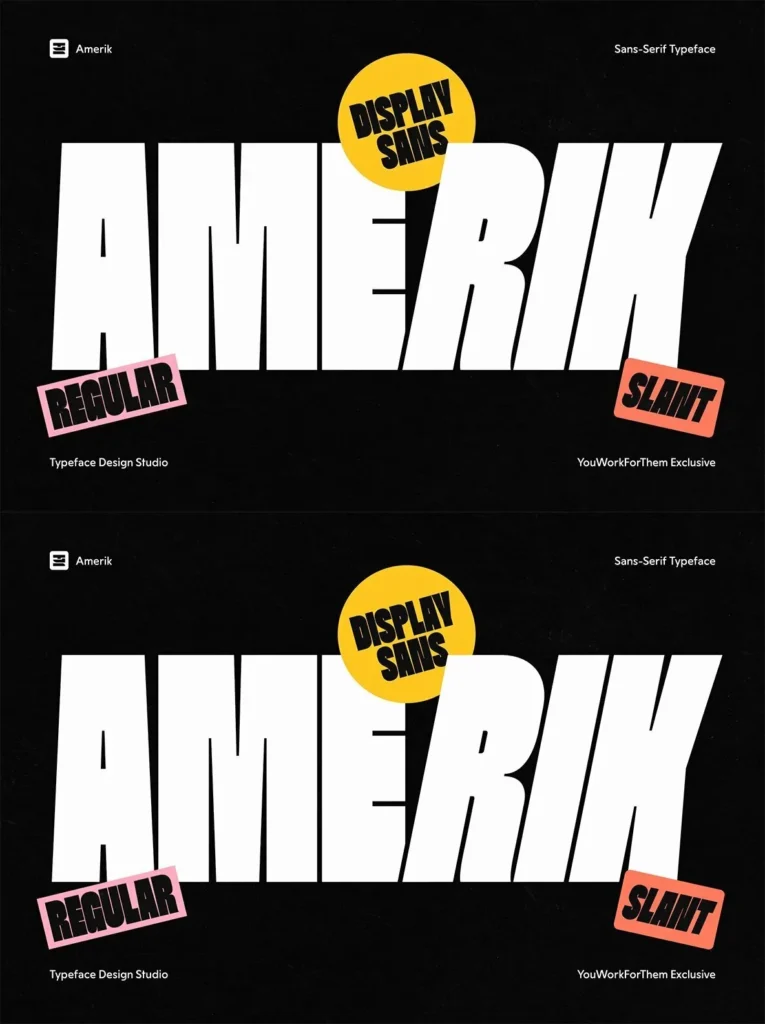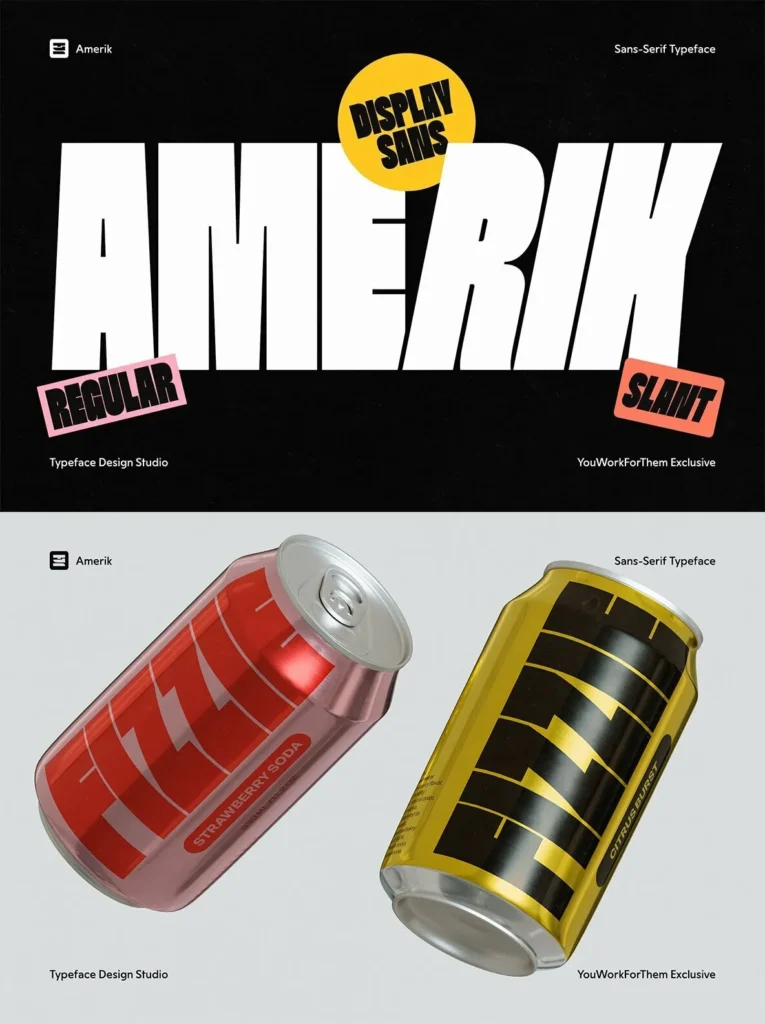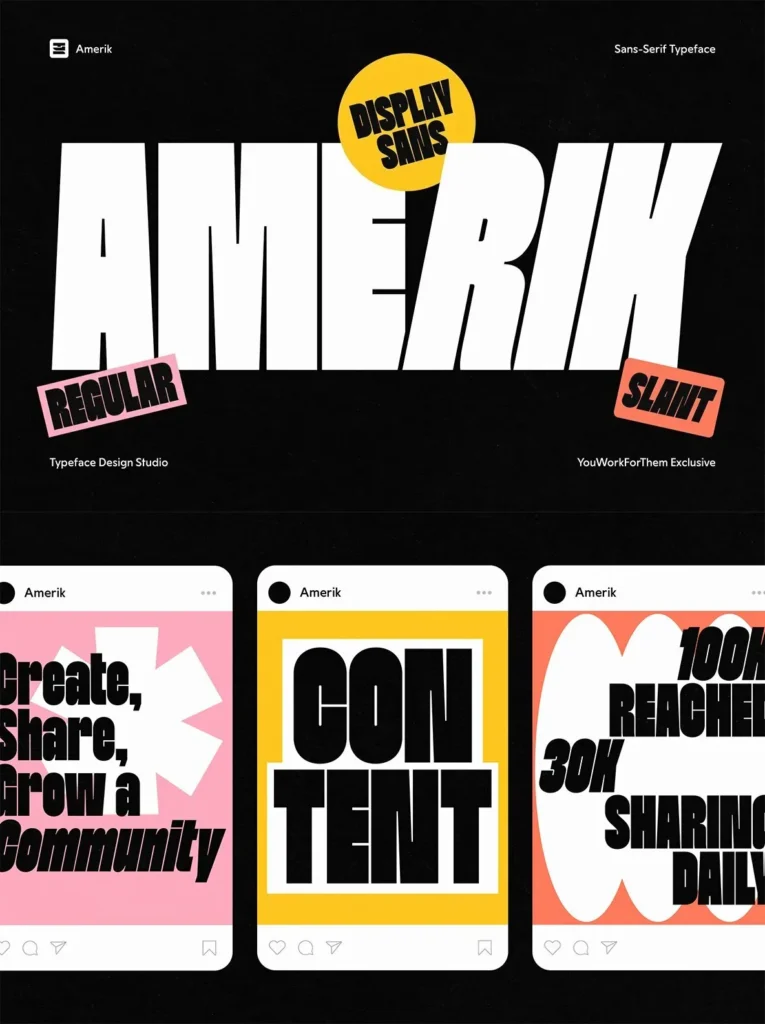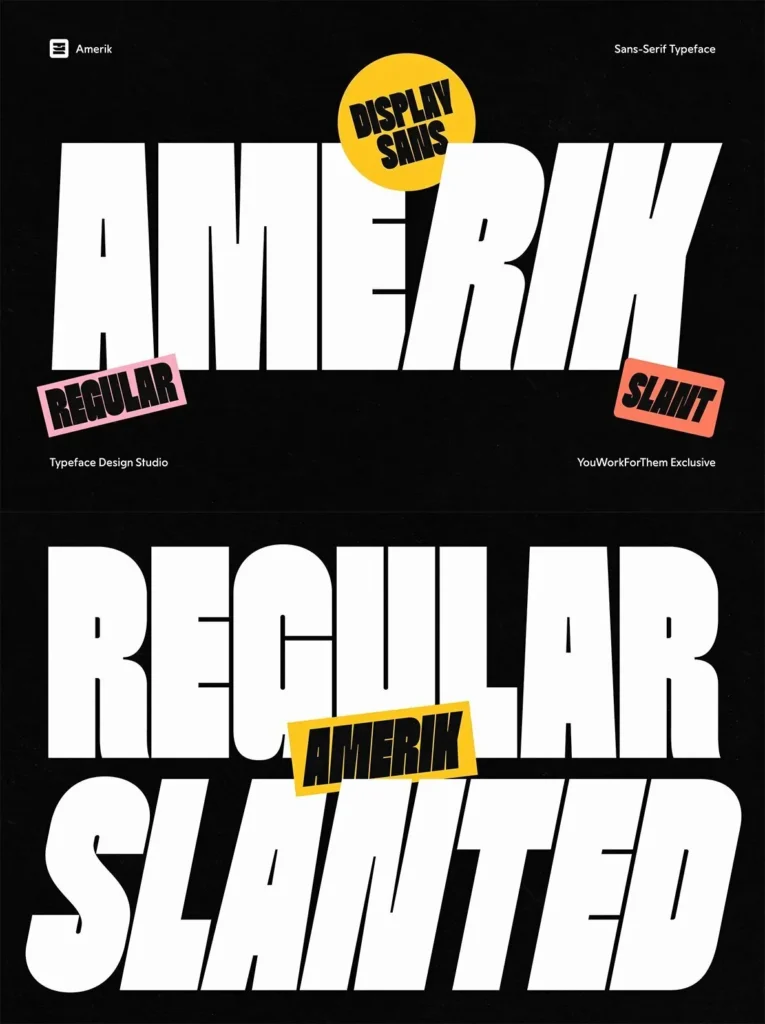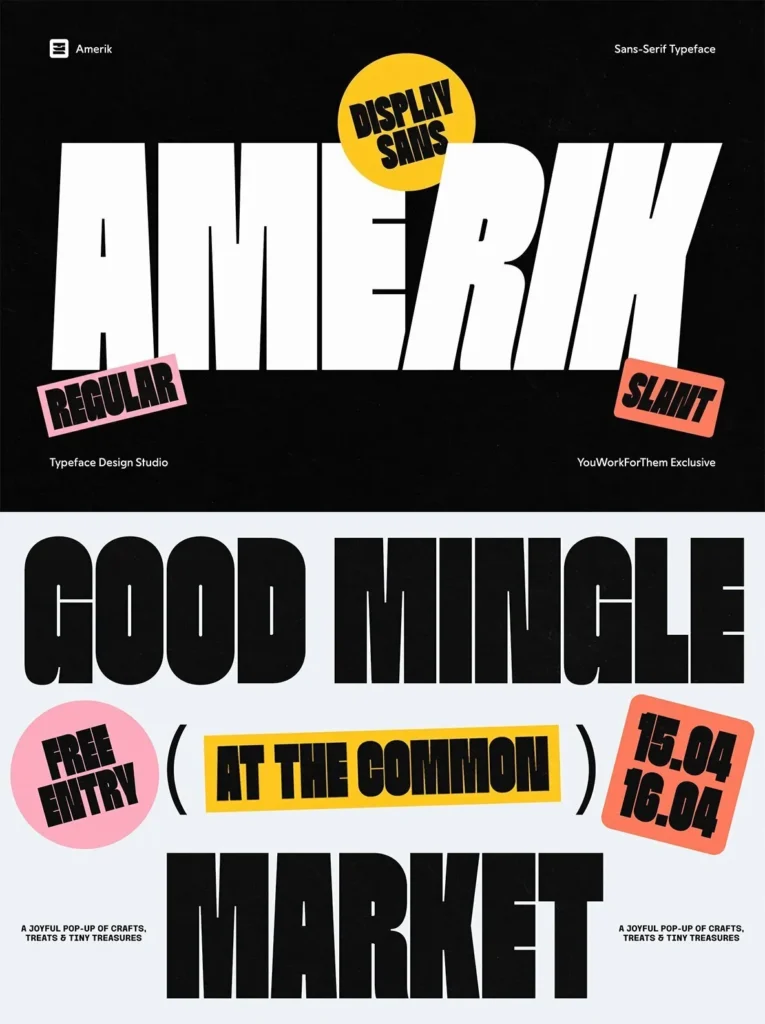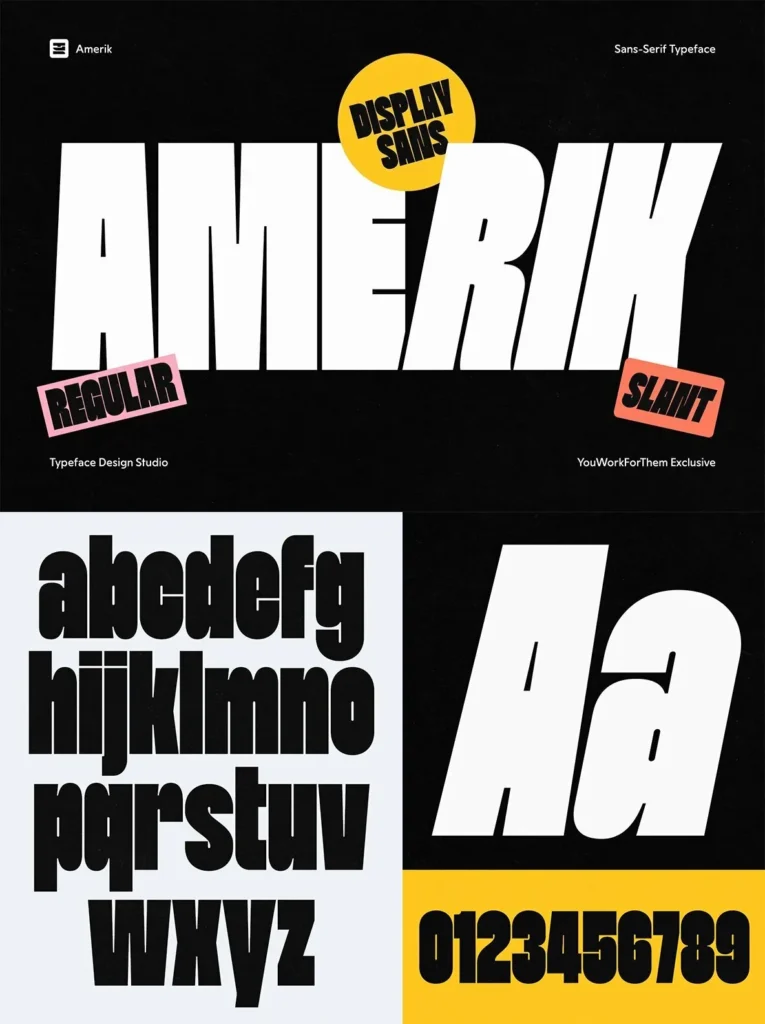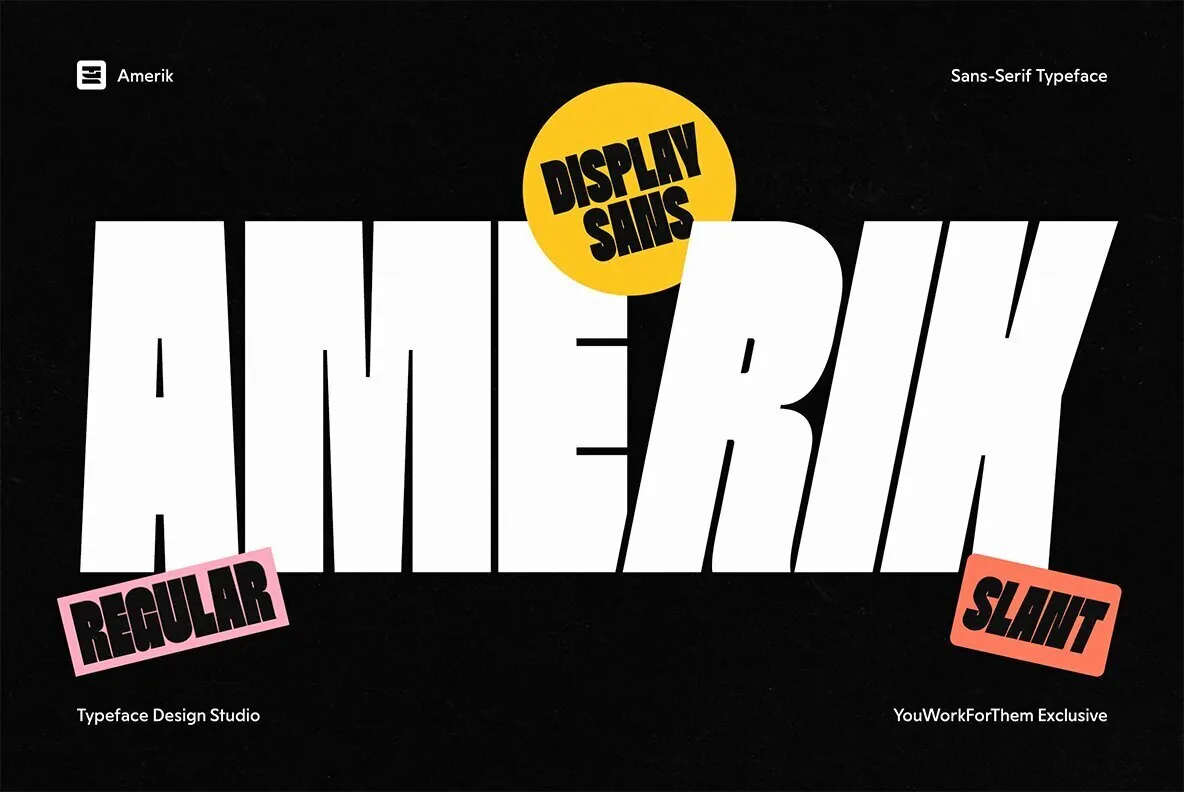
Amerik: Bold Sans Display With Striking Presence
Amerik is a sans display typeface designed for design professionals seeking clear visual impact. Its tall proportions and robust weight create a confident impression, emphasized by precise, consistent strokes and compact counters that maintain legibility at large sizes. This quality makes Amerik a strong choice for graphic designers prioritizing both clarity and character in headline typography.
Engineered for contemporary applications, Amerik suits a range of projects including editorial layouts, branding, posters, and standout visual identities. The typeface’s geometry combines structural strength with refined clarity, producing a signature look that commands attention without sacrificing readability.
Two styles: Regular and Slant for varied typographic compositions
Tall, bold proportions for enhanced visibility
Consistent stroke weight for cohesive design
Compact counters optimized for clarity